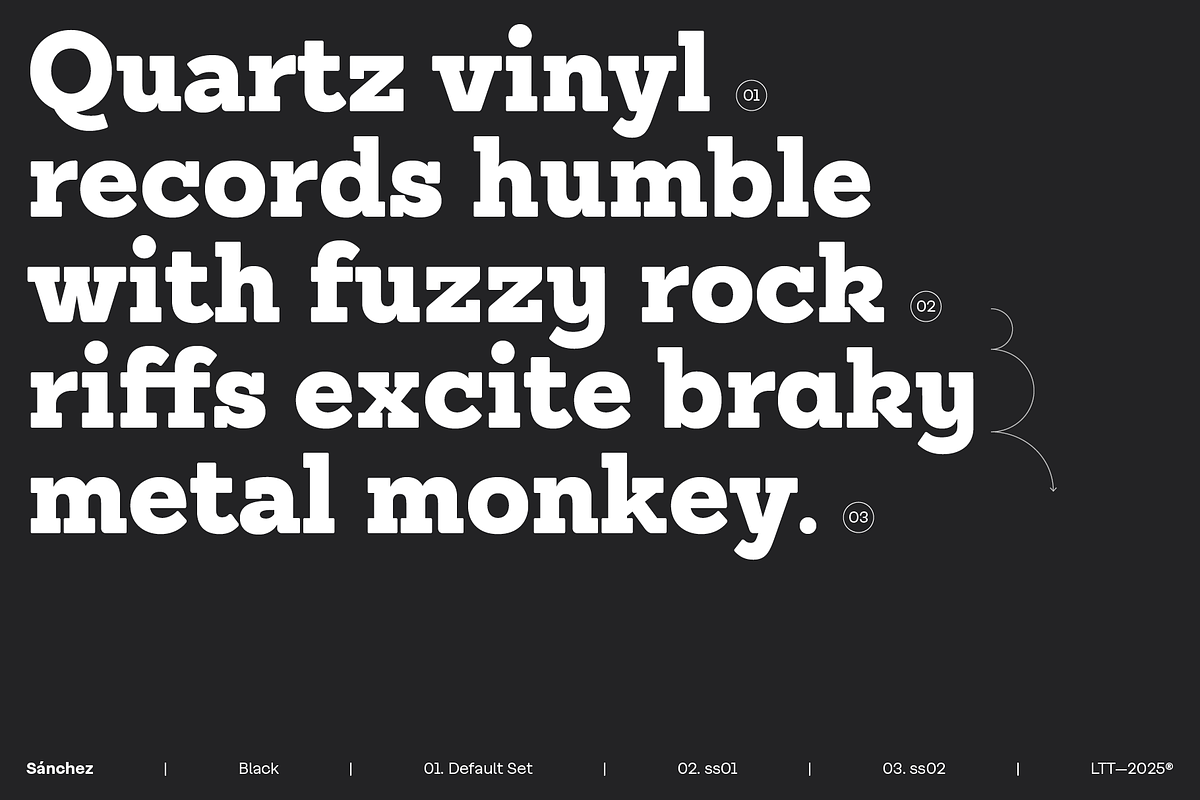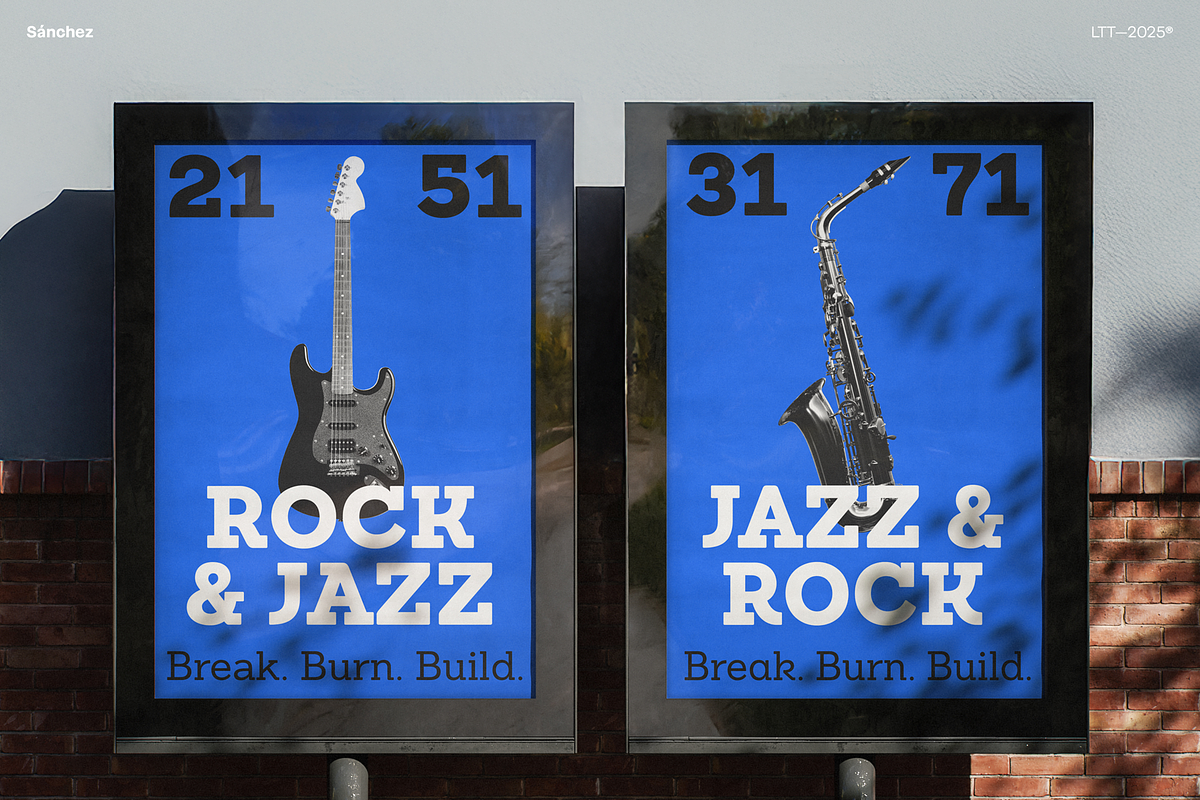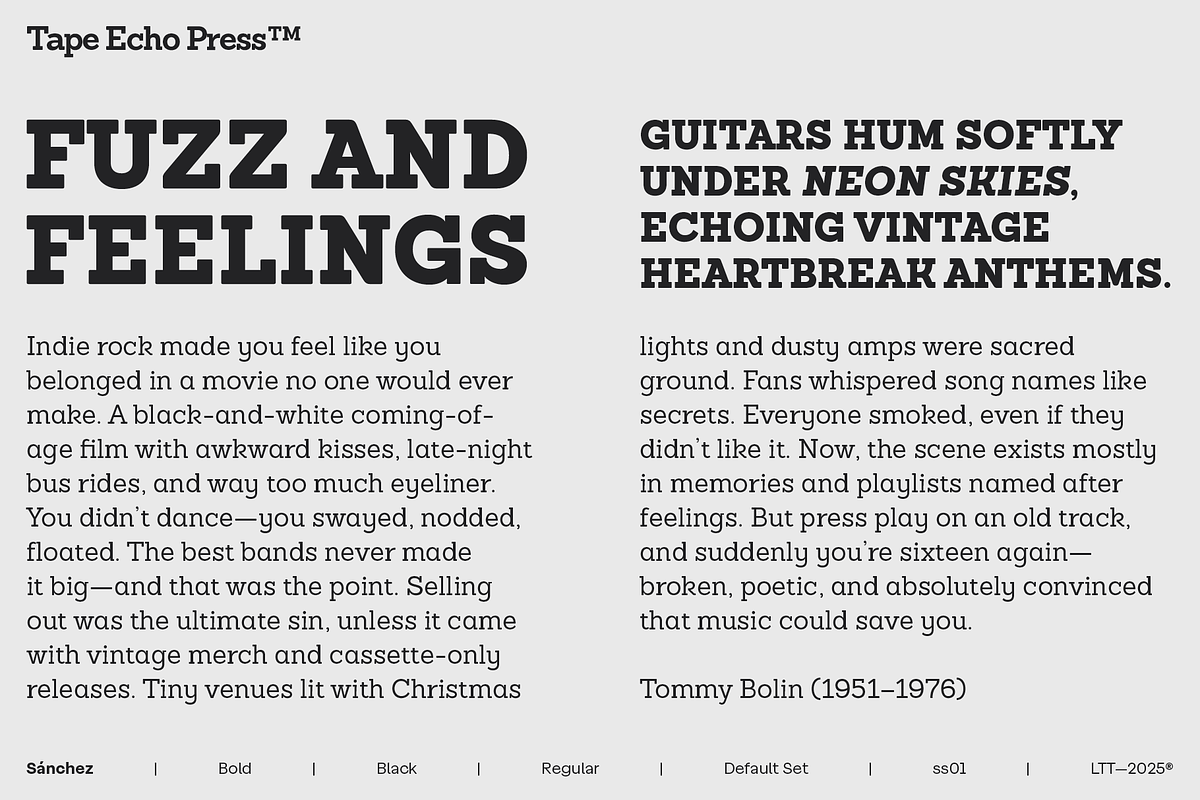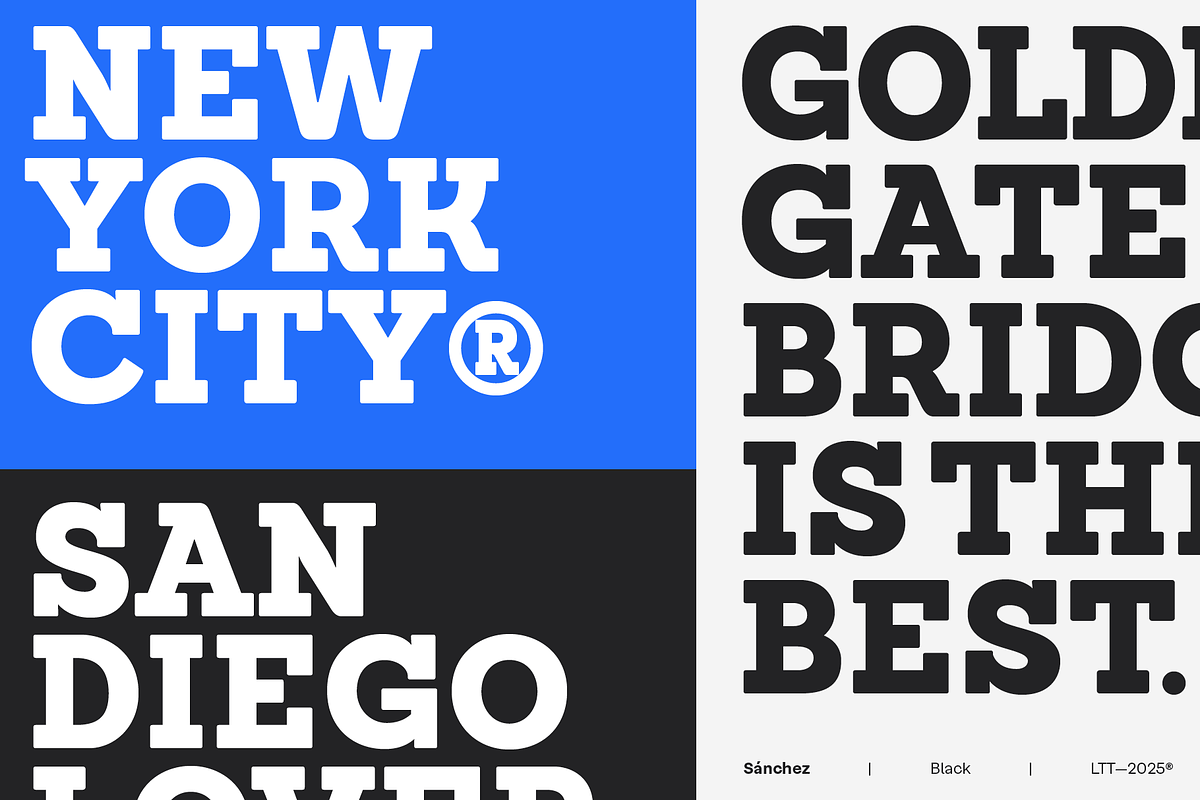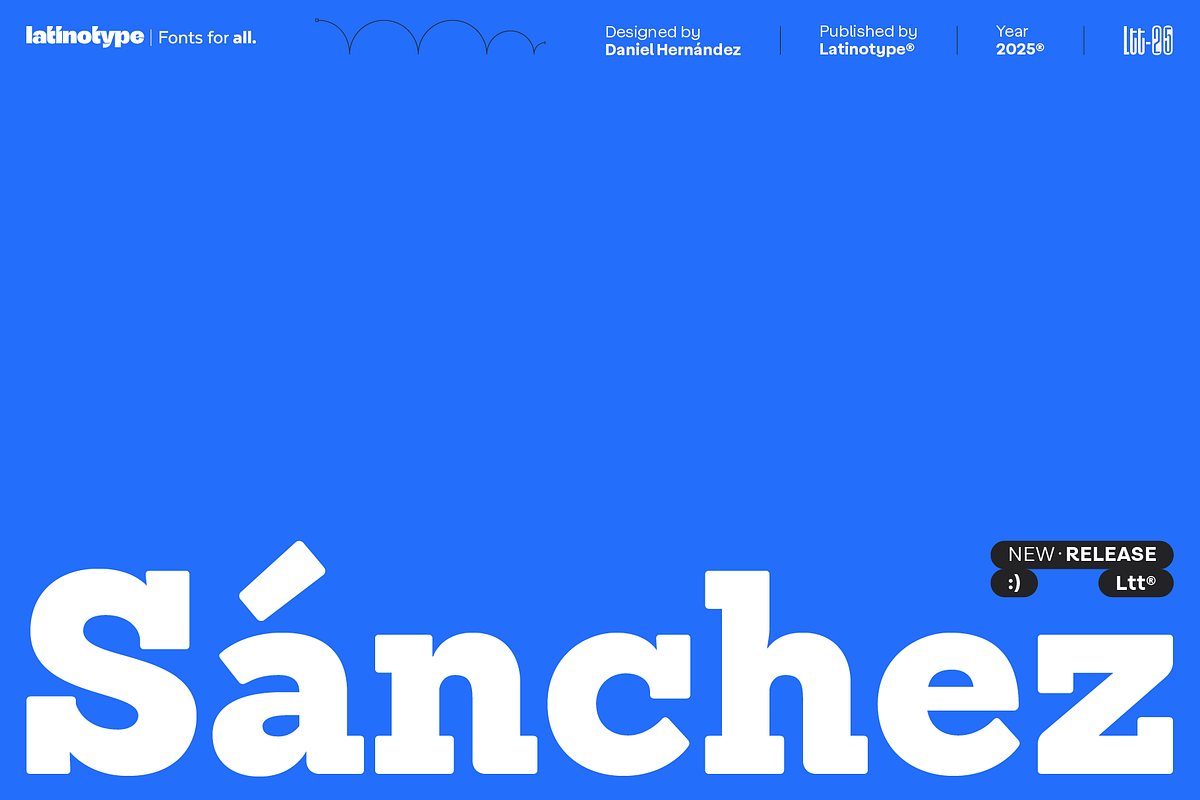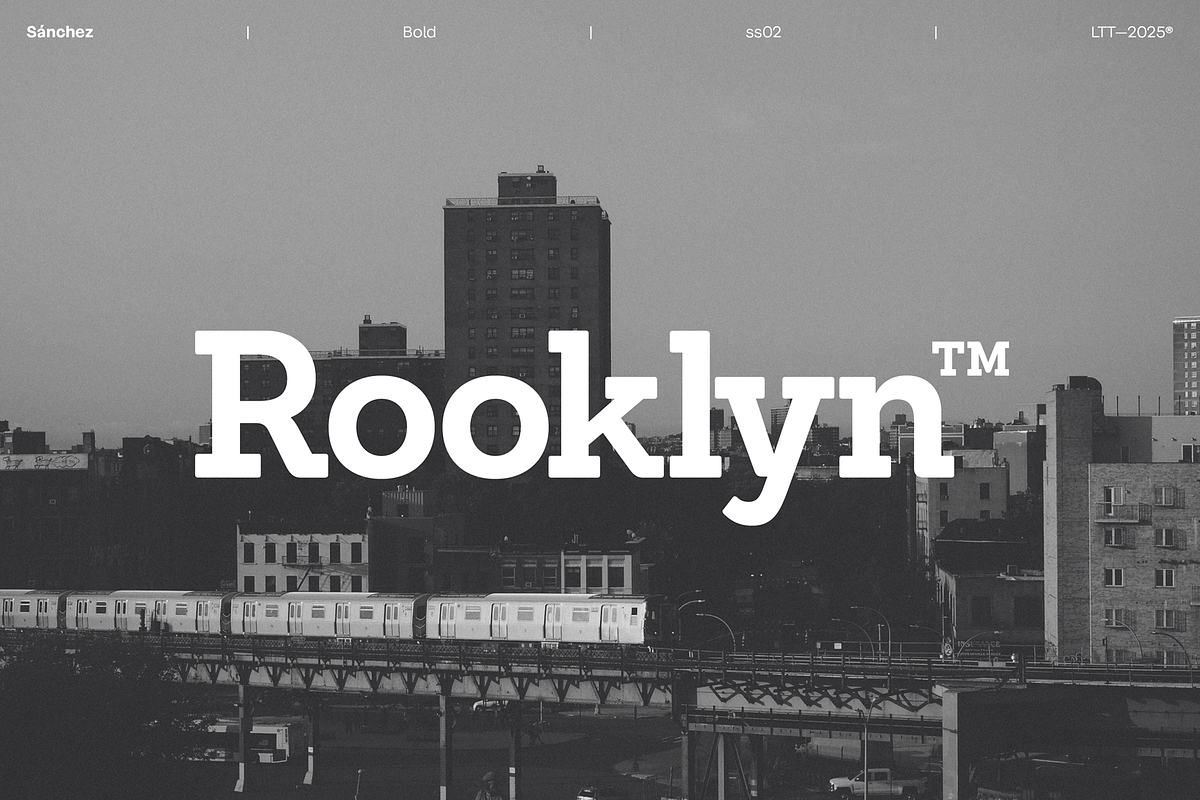
Sánchez
Sánchez, designed by Daniel Hernández, is a serif typeface belonging to the classification slab serif, or Egyptian, that bears a strong resemblance to the iconic Rockwell, but with rounded edges— offering contrast and balance to the square structure. Sánchez & Sánchez Condensed comprises 12 variants, ranging from extra light to black, each of the same x-height. Regular and Italic variants are available for free.